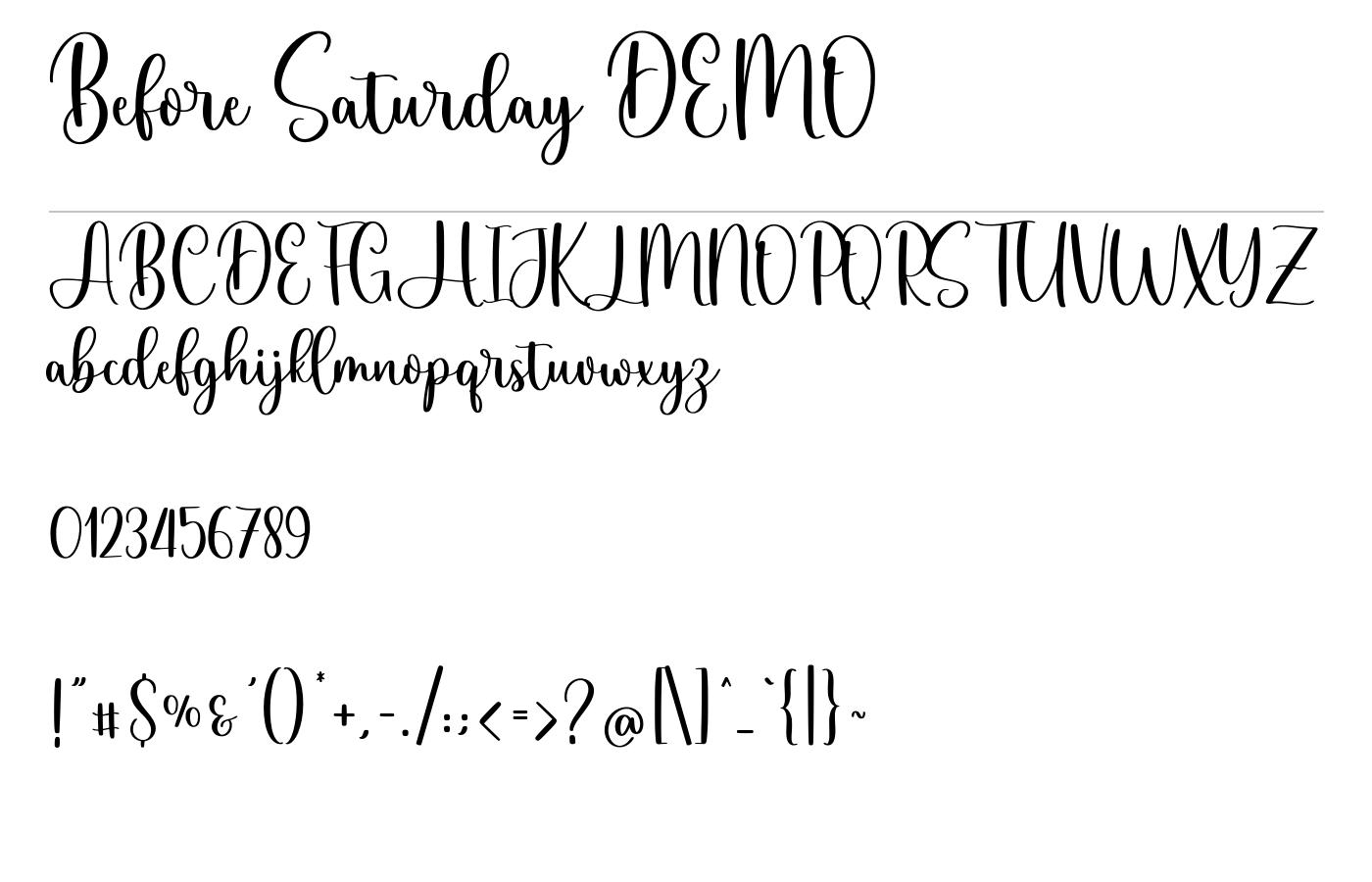
Before Saturday DEMO is a playful and elegant script font featuring tall, slender letterforms with smooth, flowing strokes and delicate curls. Its light weight and high contrast strokes give it a refined, handwritten feel that works beautifully in creative and feminine designs such as invitations, branding, and stylish headlines. This font adds a charming, personal touch while remaining clear and readable, making it ideal for projects that want to convey grace and warmth.
Before Saturday DEMO Font
About Before Saturday DEMO Font